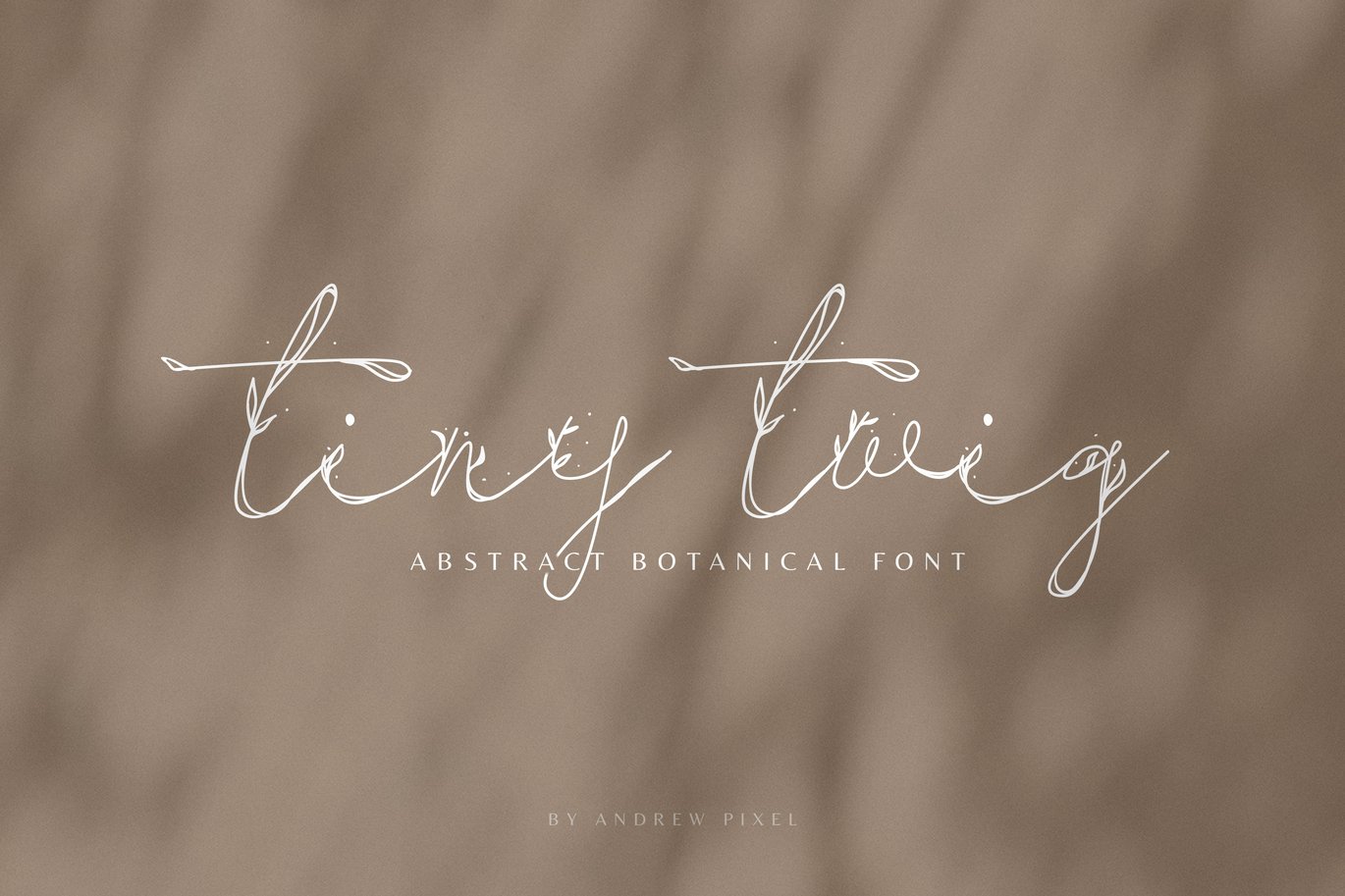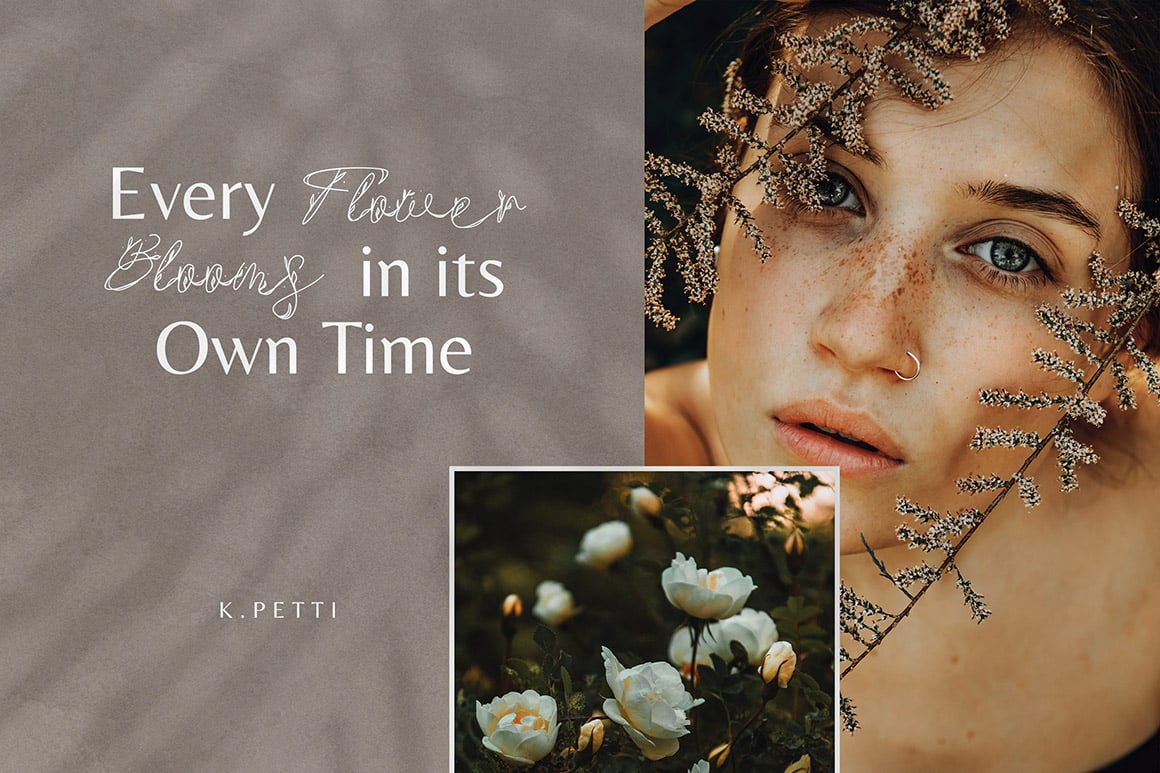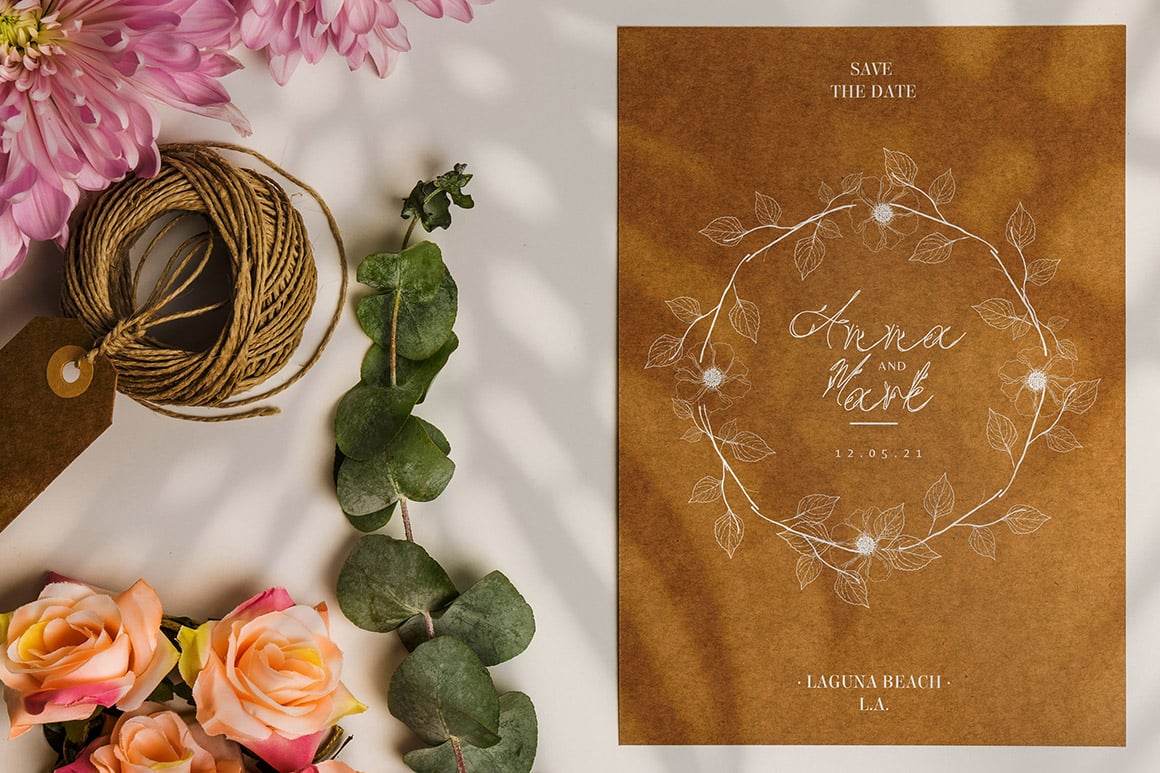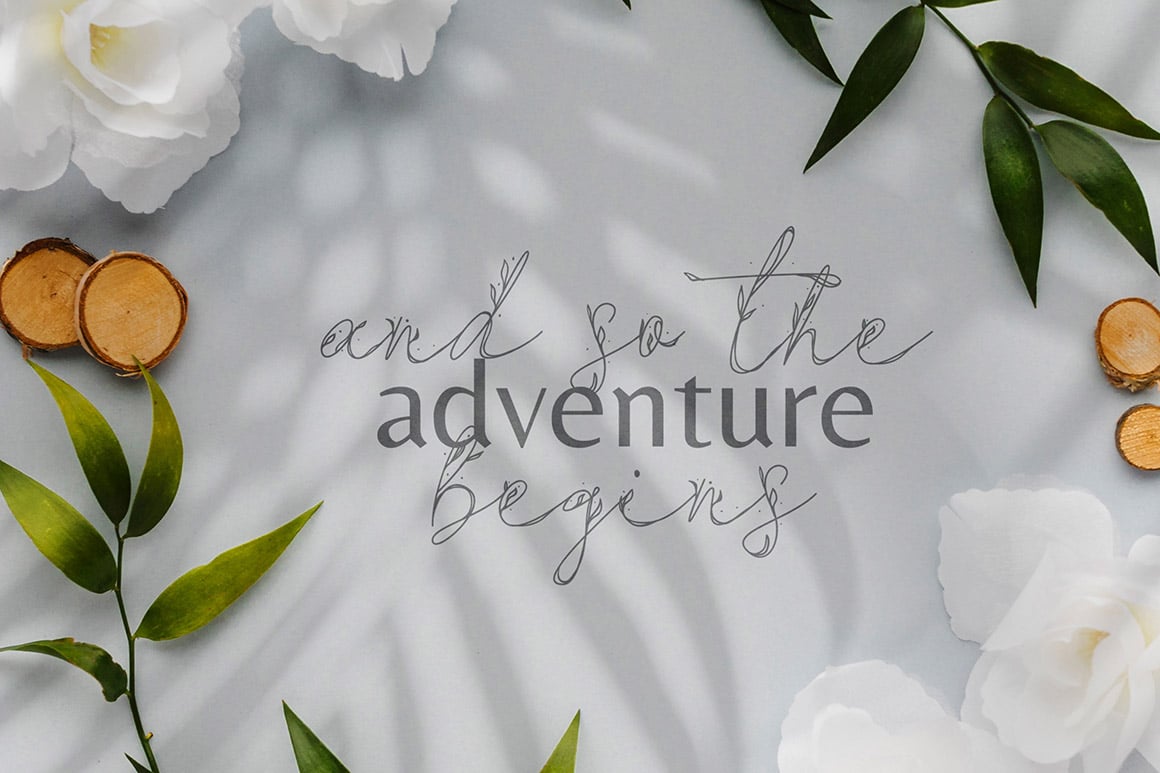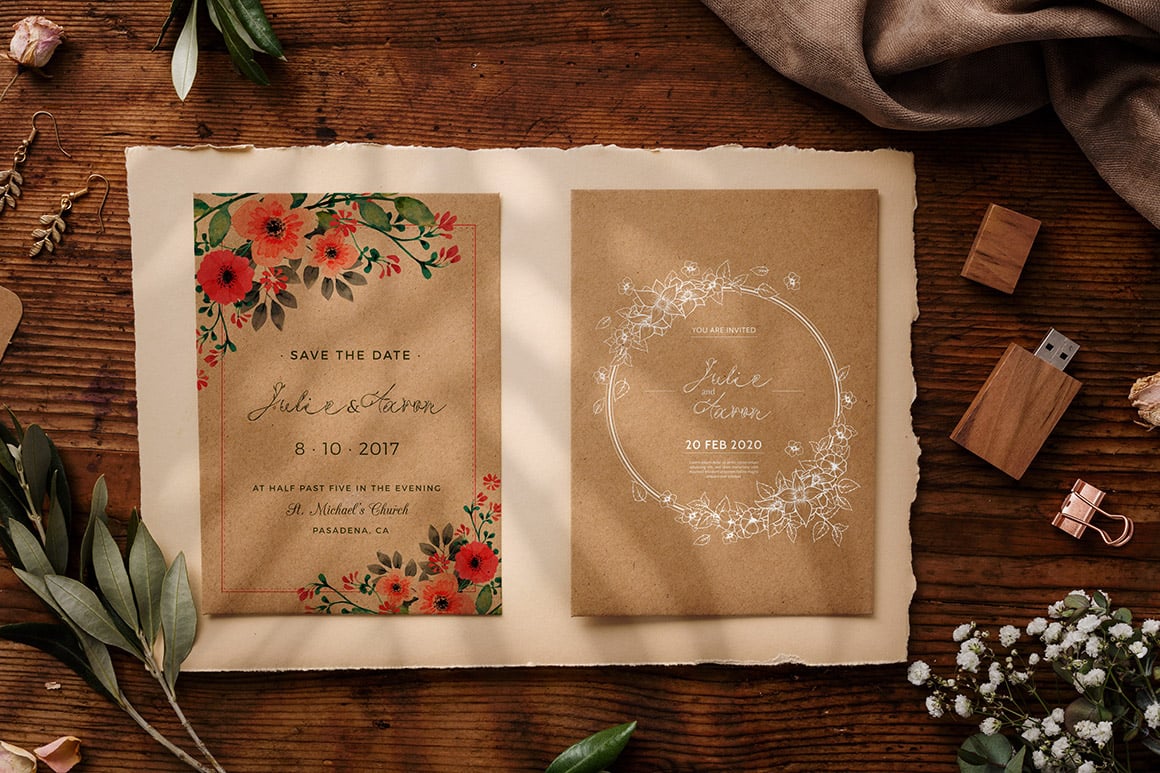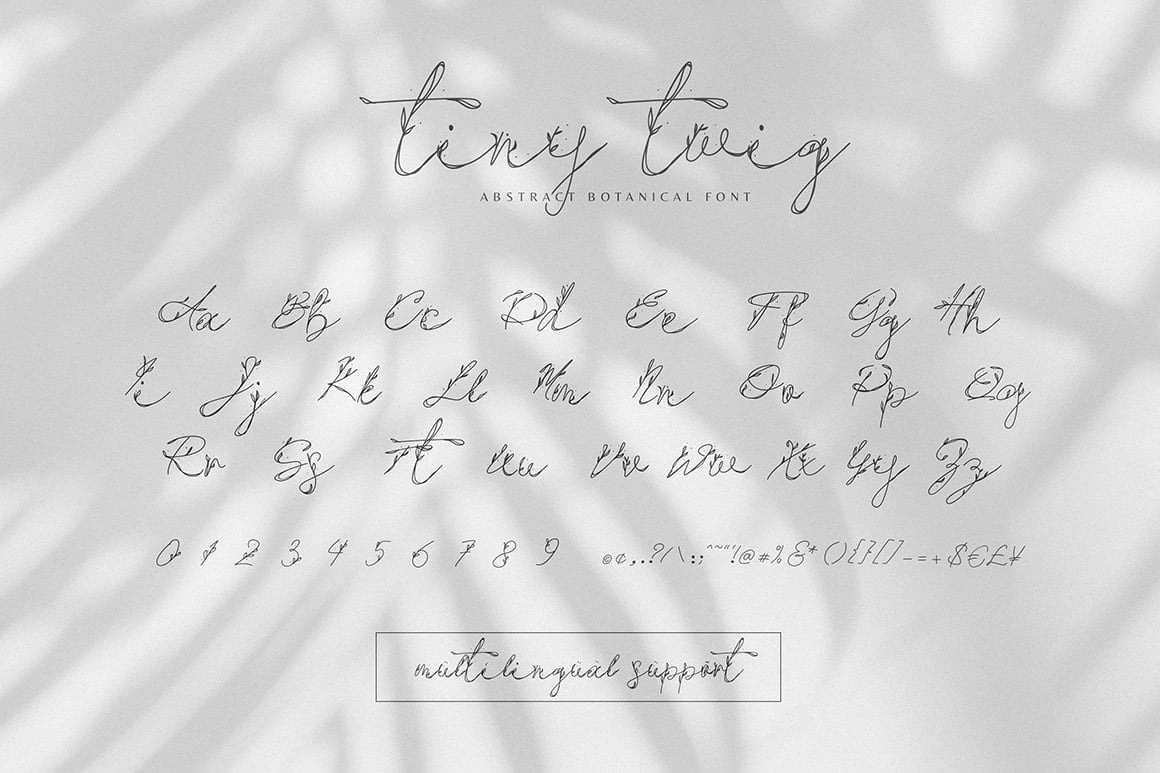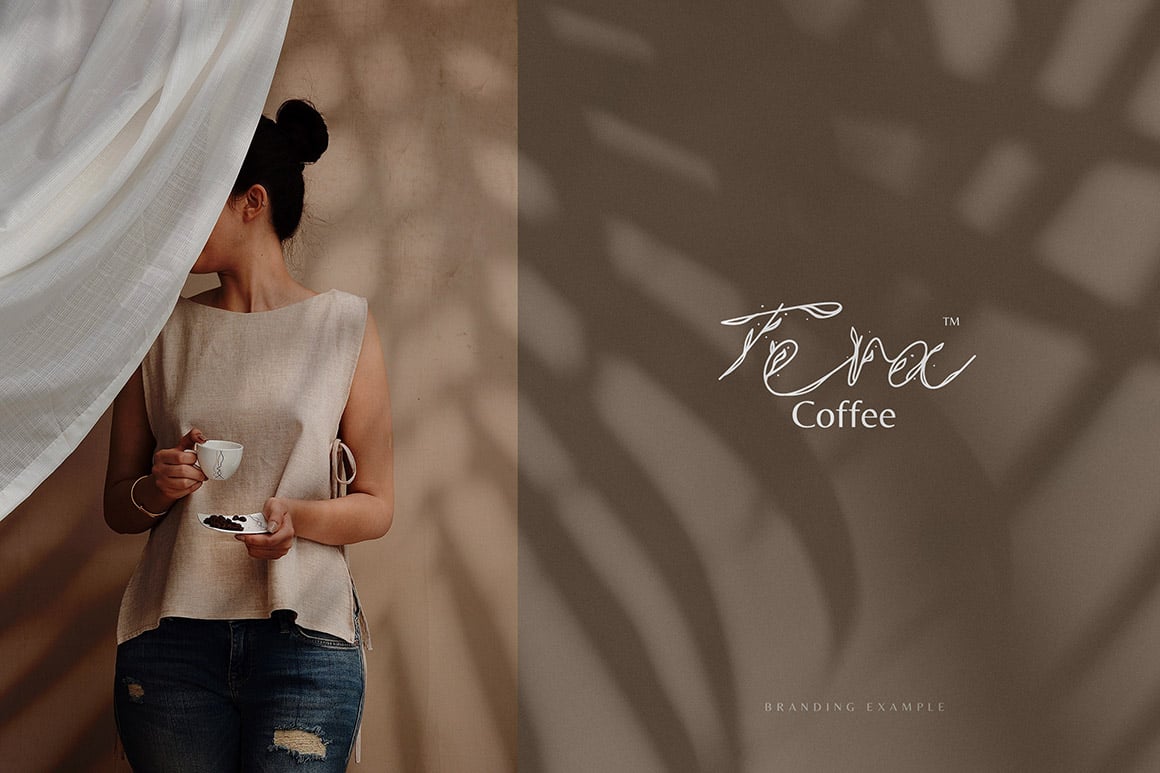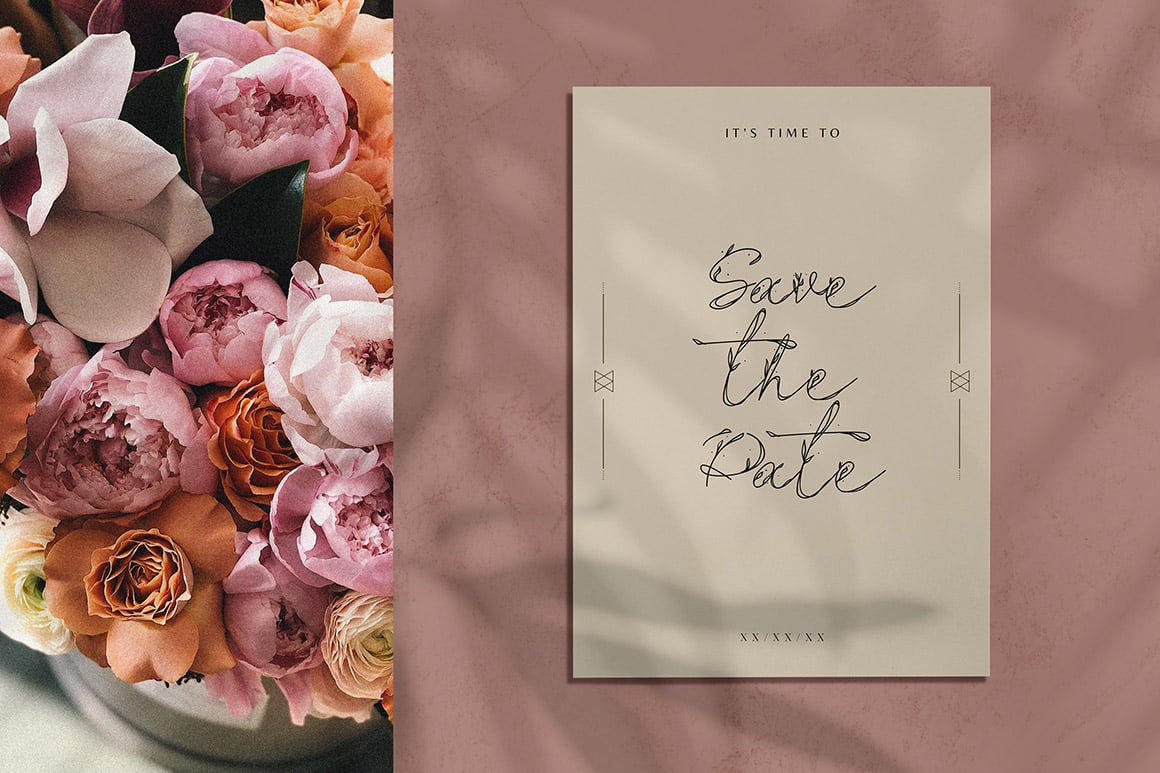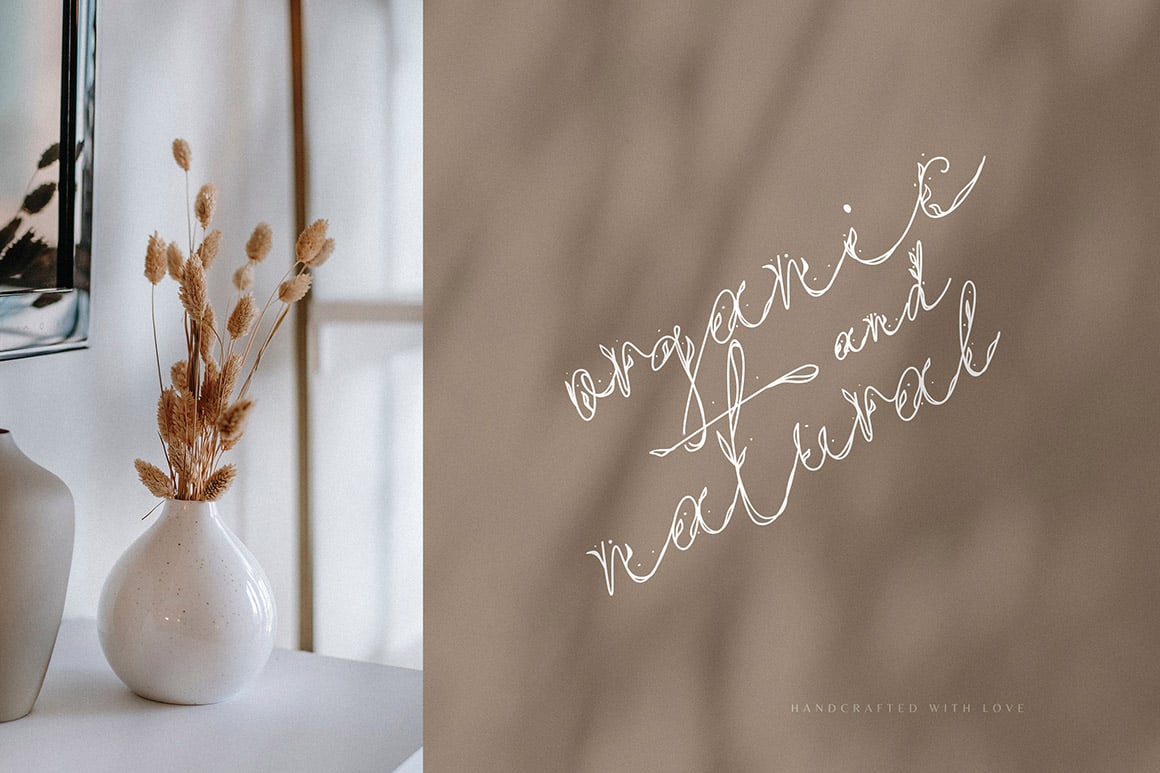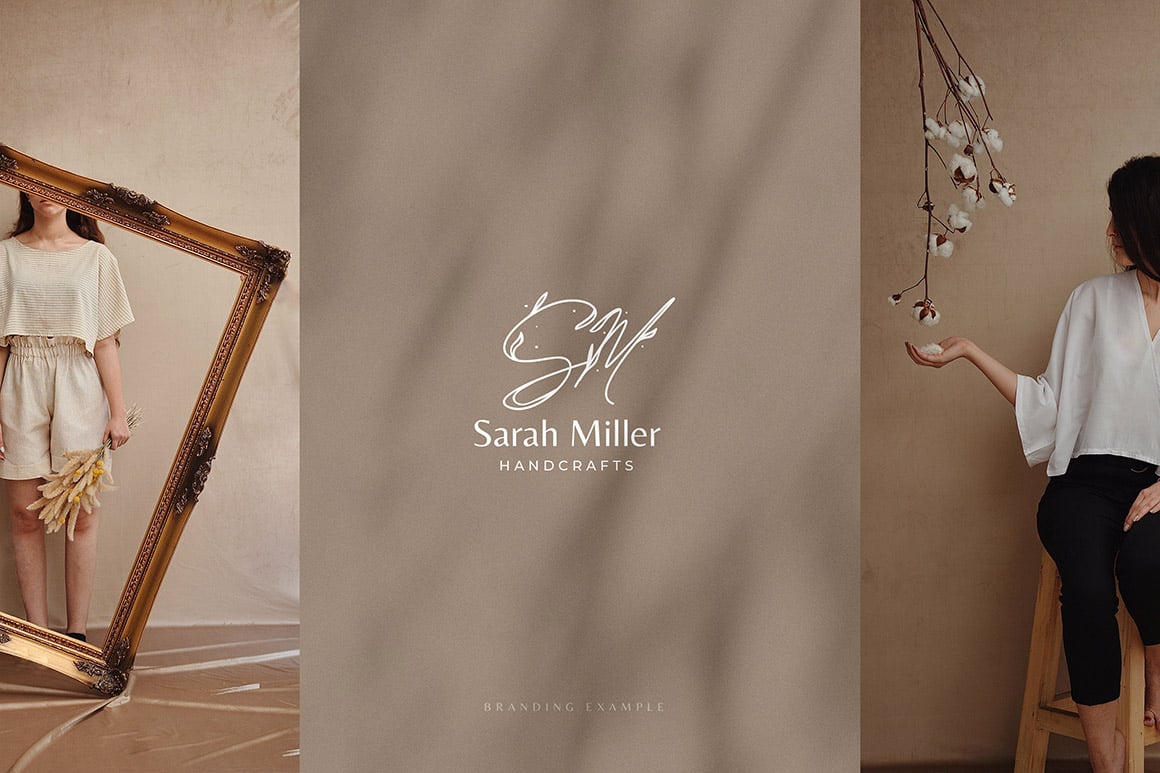
Tiny Twig – Botanical Display Font
Introducing Tiny Twig Font – A decorative display font with handdrawn botanical leaf elements.
This font is meant to be used together with a classic sans serif or serif. It’s perfect for adding that unique accent to your designs.
You can use it for logos, branding, flyers, posters, wedding inviations, quotes, social media posts and more!
The font also supports a basic set of multilingual glyphs.